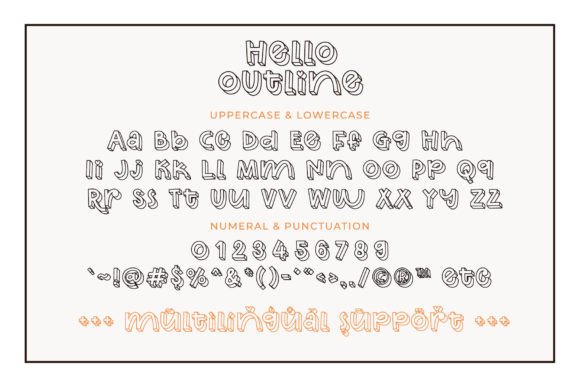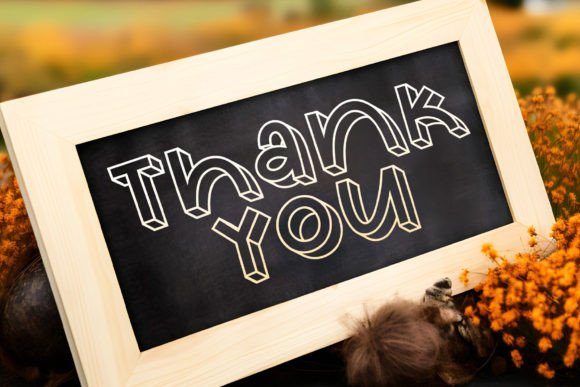
Hello Outline Font
Hello Outline is an outline 3D font with fun and cute vibes. It is a pretty and quirky font, perfect for designs with cute and playful theme, such as back to school design, birthday invitation, notes, t-shirt, crafting, sticker, planner, and many more.